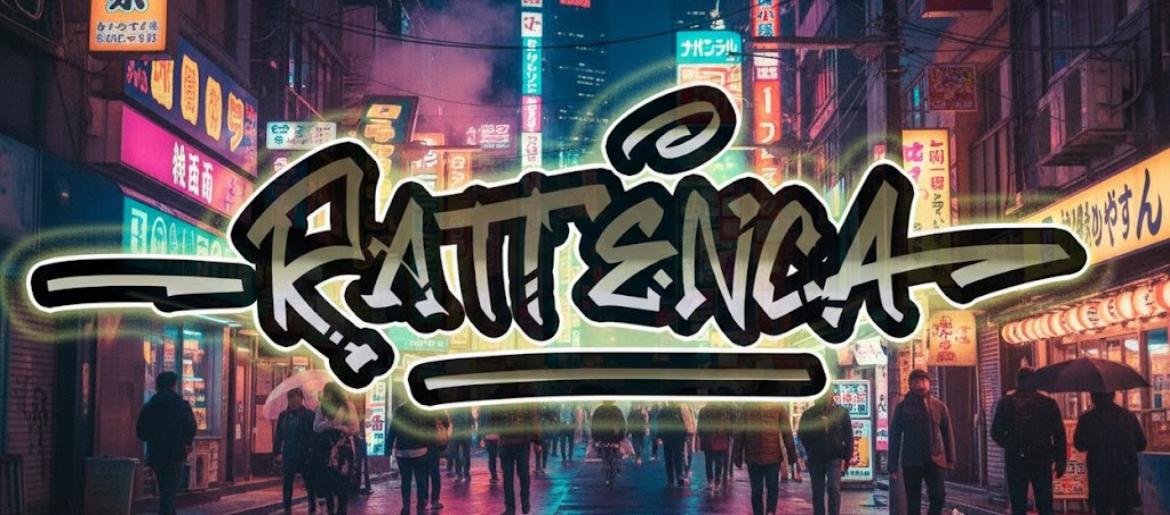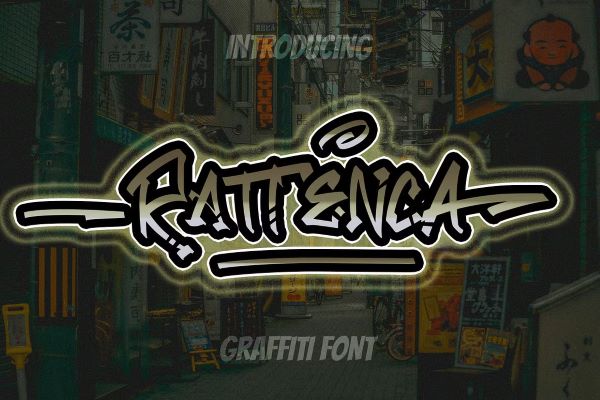
Rattenca Font
Rattenca Font is an expressive urban-style typeface inspired by street art culture. With bold strokes, dynamic shapes, and rebellious energy, it’s ideal for posters, logos, apparel, album covers, and designs that demand a raw, creative, and modern street look.
➤ Font Name: Rattenca
➤ Designer: NTC Graphic
➤ Style: Graffiti